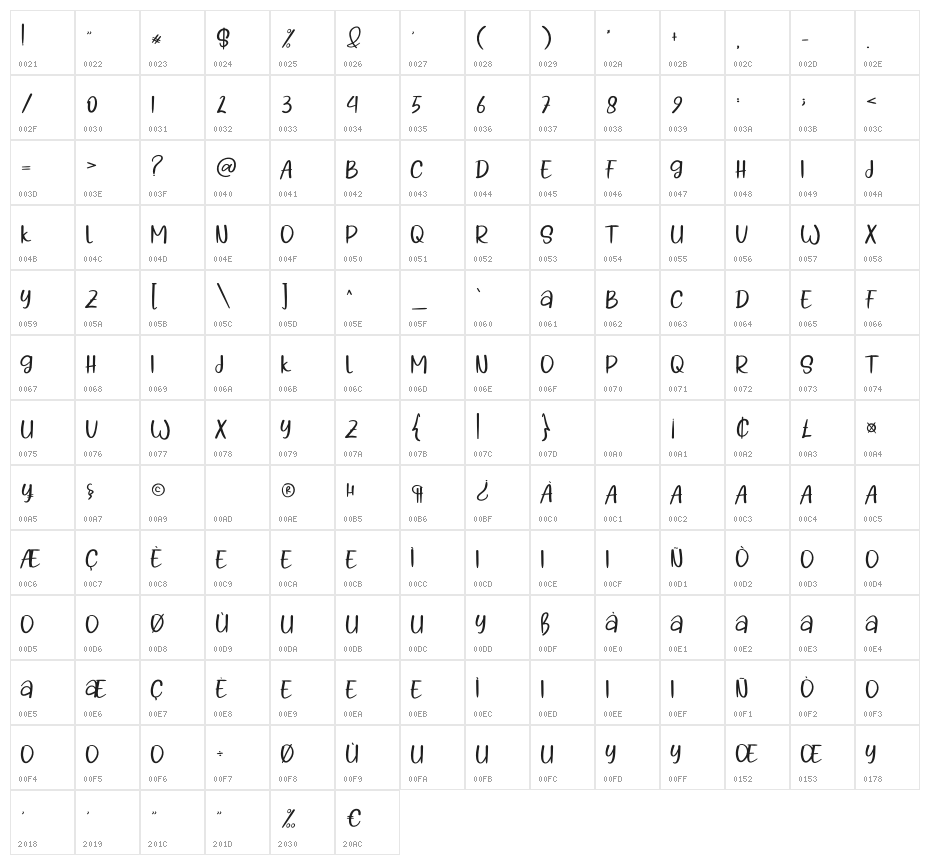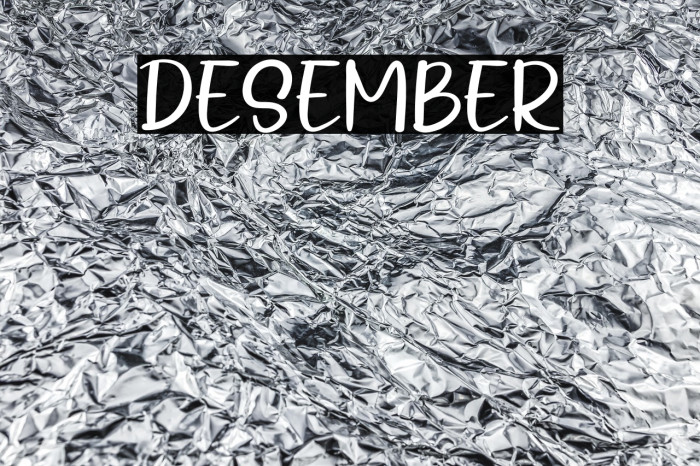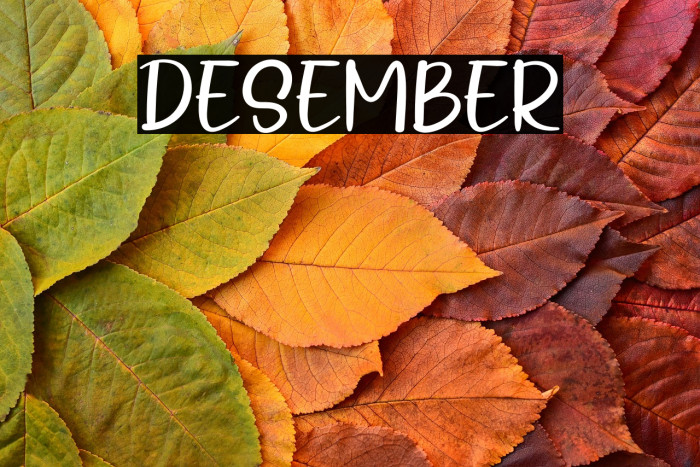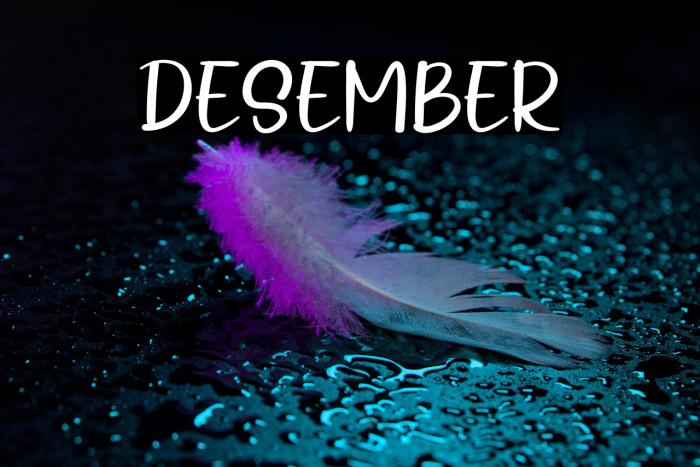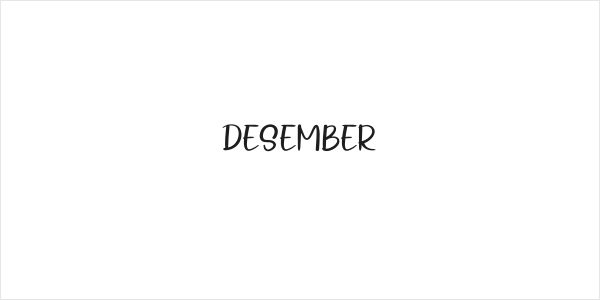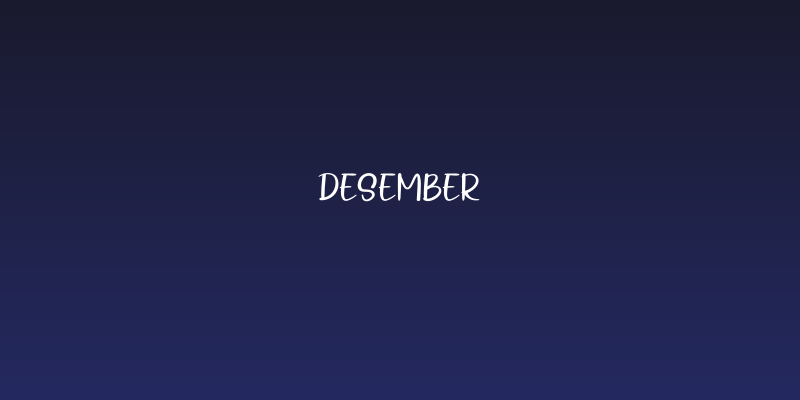
Desember Font
Desember Description
A playful handwritten typeface with rounded terminals, consistent stroke width, and a casual, friendly appearance. The characters are slightly slanted, giving a dynamic and informal feel, while maintaining good legibility across uppercase, lowercase, numerals, and symbols.
Overall StylePlayful, Casual, Modern
Use CaseHeadlines, Short text, Logos, Informal branding
Proposed ProjectsGreeting cards, invitations, children's books, social media graphics, branding for creative businesses.